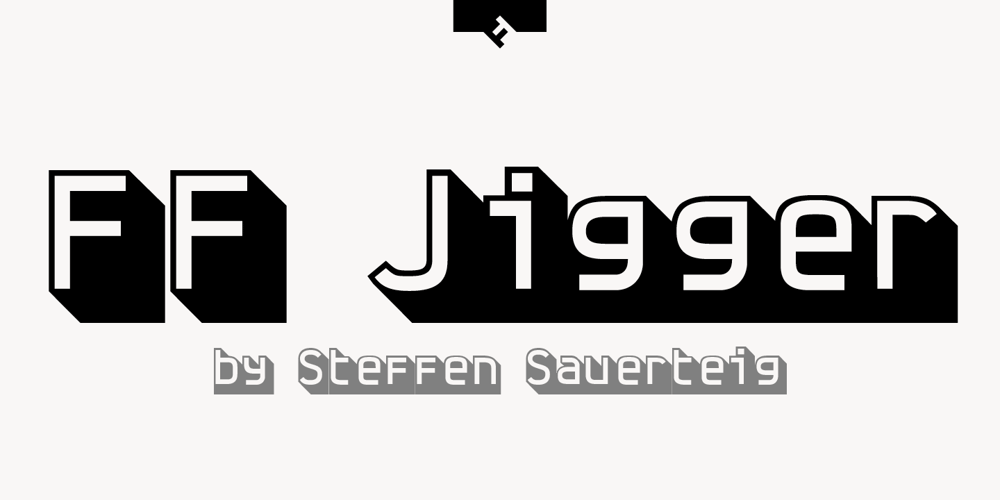
FF Jigger Font Family was designed by Steffen Sauerteig and published by FontFont. FF Jigger contains 6 styles and family package options. German type designer Steffen Sauerteig created this display and sans FontFont in 2000. The family has 6 weights, and is ideally suited for music and nightlife, poster and billboards as well as software and gaming. FF Jigger provides advanced typographical support with features such as alternate characters. It comes with tabular lining and proportional lining figures.